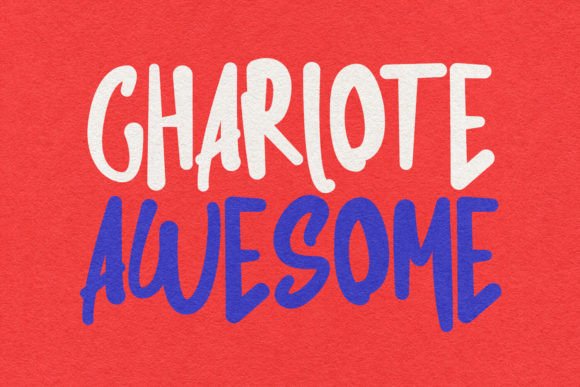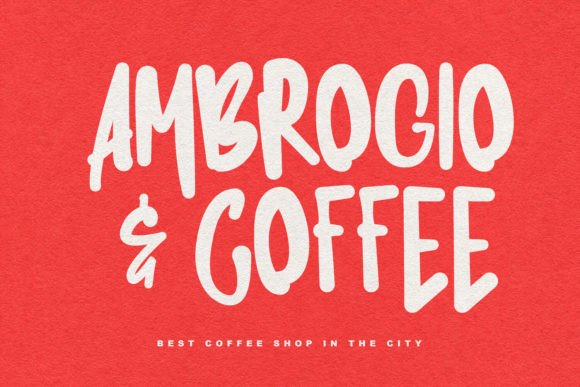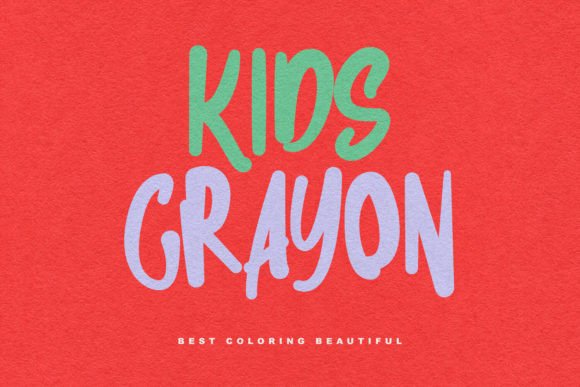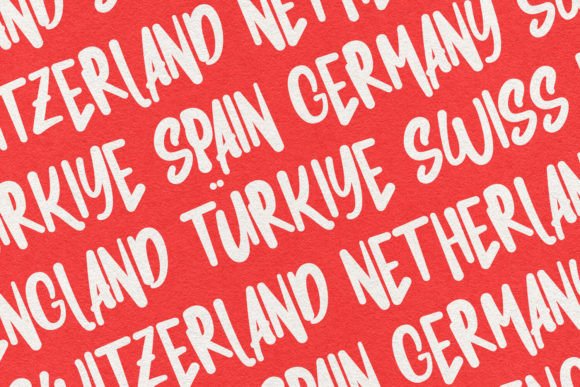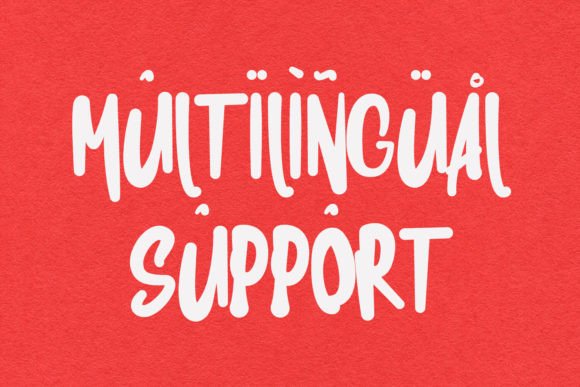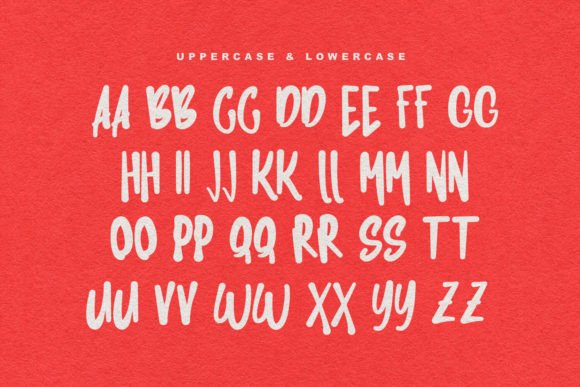
Aspan Font: The Sweet and Friendly Handwritten Font for Your Creative Projects
Are you a designer, crafter, or DIY enthusiast looking for a font that can add a personal touch to your projects? Look no further than Aspan Font, a sweet and friendly handwritten font that’s perfect for a wide range of designs. With its natural and unique style, Aspan Font is incredibly versatile and can be used for various creative projects, from digital designs to handmade crafts.
What Makes Aspan Font So Special?
Aspan Font is a one-of-a-kind handwritten font that’s designed to bring a touch of warmth and personality to your designs. Its natural and unique style makes it stand out from other fonts, and its friendly vibe is sure to capture the hearts of your audience. Whether you’re creating a logo, a poster, a card, or a digital graphic, Aspan Font is the perfect choice for adding a personal touch.
The Benefits of Using Aspan Font
So, what makes Aspan Font so special? Here are just a few benefits of using this amazing font:
- Unique and eye-catching: Aspan Font is a one-of-a-kind font that’s sure to grab attention. Its unique style sets it apart from other fonts, making it perfect for designers who want to create something truly special.
- Versatile: Aspan Font is incredibly versatile and can be used for a wide range of designs, from digital graphics to handmade crafts. Whether you’re creating a logo, a poster, or a card, Aspan Font is the perfect choice.
- Easy to read: Despite its unique style, Aspan Font is incredibly easy to read, making it perfect for designs where you need to convey a message.
- Perfect for branding: Aspan Font is perfect for creating a consistent brand identity. Its friendly and approachable vibe makes it perfect for businesses that want to connect with their audience on a personal level.
How to Use Aspan Font in Your Designs
So, how can you use Aspan Font in your designs? Here are a few ideas to get you started:
- Logos: Use Aspan Font to create a unique and eye-catching logo that sets your business apart.
- Posters: Add a personal touch to your posters with Aspan Font. Its friendly vibe makes it perfect for promoting events, products, or services.
- Cards: Use Aspan Font to create beautiful and personalized cards for special occasions.
- Digital graphics: Add a touch of personality to your digital graphics with Aspan Font. Its unique style makes it perfect for social media graphics, blog posts, and more.
- Crafting: Aspan Font is perfect for crafters who want to add a personal touch to their projects. Use it to create beautiful and unique signs, banners, and more.
Tips for Getting the Most Out of Aspan Font
Here are a few tips for getting the most out of Aspan Font:
- Experiment with different colors: Aspan Font looks great in a variety of colors, so don’t be afraid to experiment and find the perfect hue for your design.
- Play with different sizes: Aspan Font can be used in a variety of sizes, from large and bold to small and delicate.
- Combine with other fonts: Aspan Font pairs well with other fonts, so don’t be afraid to combine it with other fonts to create a unique and eye-catching design.